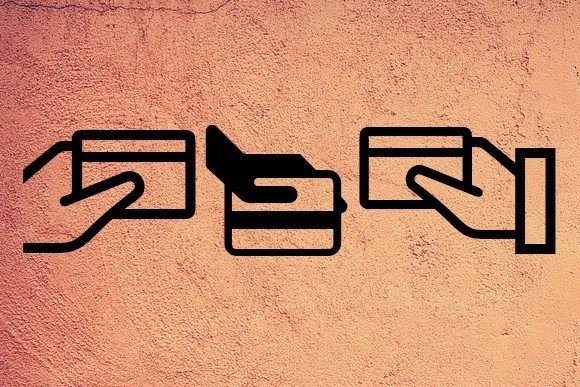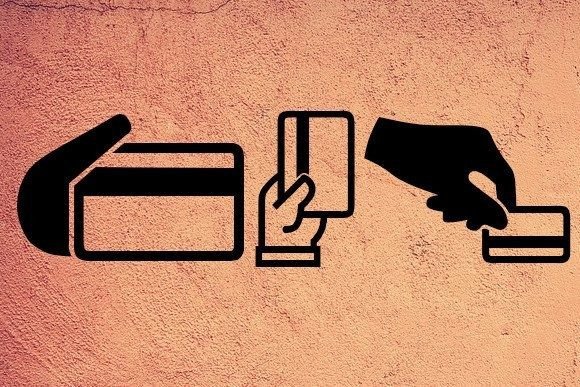
Credit Card Font: Elevate Your Designs with a Stunning Dingbat
Are you a designer or crafter looking for a unique and eye-catching element to add to your projects? Look no further than the Credit Card Font, an awesome dingbat that is sure to impress. This versatile and stylish font is perfect for a wide range of applications, from flyers and posters to social media graphics and more.
What is a Dingbat?
For those who may be unfamiliar, a dingbat is a type of font that features symbols, icons, or other graphical elements rather than traditional letters and numbers. Dingbats are often used to add visual interest and personality to designs, and can be used in a variety of creative ways.
Why Choose the Credit Card Font?
So why choose the Credit Card Font over other dingbats? Here are just a few reasons why this font stands out:
• Unique and eye-catching: The Credit Card Font features a distinctive and recognizable design that is sure to grab attention.
• Versatile: This font can be used in a wide range of applications, from print materials like flyers and posters to digital graphics and social media posts.
How to Use the Credit Card Font
• Flyers and posters: Add a bold and eye-catching element to your print materials with the Credit Card Font.
• Social media graphics: Use this font to create engaging and shareable social media graphics that will help your brand stand out.
• Web design: Incorporate the Credit Card Font into your website design to add a touch of personality and style.
Tips for Getting the Most Out of the Credit Card Font
Here are a few tips for getting the most out of the Credit Card Font:
• Experiment with different colors: Try out different color schemes and combinations to see what works best with the Credit Card Font.
• Play with size and placement: Don’t be afraid to experiment with different sizes and placements of the Credit Card Font to create visual interest.
• Combine with other fonts: Try pairing the Credit Card Font with other fonts to create a unique and visually appealing combination.
In conclusion, the Credit Card Font is an awesome dingbat that is sure to elevate your designs and projects. With its unique and eye-catching design, versatility, and ease of use, this font is a must-have for designers and crafters. Whether you’re creating flyers and posters, social media graphics, or web design elements, the Credit Card Font is sure to make a statement.